Unveiling the Mystery: What is This Font From Image? Your Ultimate Guide with Tophinhanhdep.com
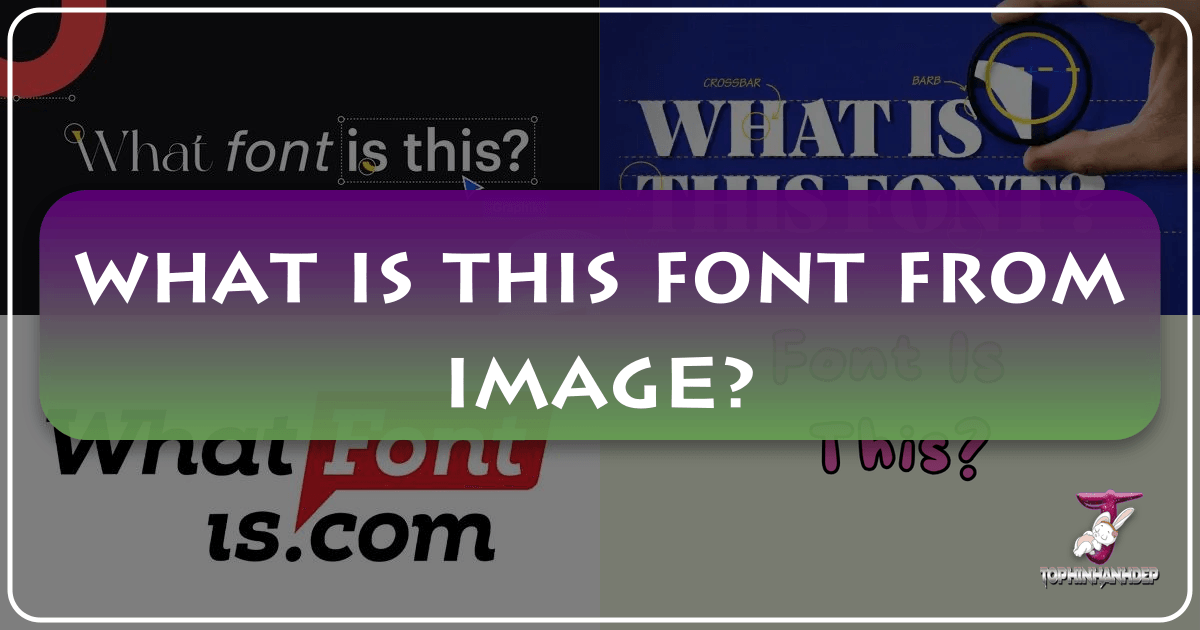
In the dynamic world of visual content, where every detail contributes to a compelling narrative, typography stands as an unsung hero. From the bold headlines on a stunning wallpaper to the subtle captions accompanying a breathtaking nature photograph, fonts dictate mood, convey messages, and establish aesthetic consistency. For designers, photographers, and anyone passionately engaged in digital art, the question “what is this font from image?” is not merely a fleeting curiosity but a critical challenge that can significantly impact a project’s success. At Tophinhanhdep.com, your premier resource for high-resolution images, creative inspiration, and essential image tools, we understand this challenge intimately. This comprehensive guide will delve into the art and science of font identification, exploring its significance, preparation techniques, and the cutting-edge tools that empower you to unlock the typographic secrets hidden within any image.
The frustration is universal: you encounter a captivating image, perhaps a striking abstract background or a beautifully designed aesthetic piece, and a particular typeface catches your eye. Its unique curves, the way its serifs subtly extend, or the sheer elegance of its sans-serif structure seems perfect for your next project – be it a new graphic design layout, a personalized wallpaper, or even a nuanced photo manipulation. Yet, without knowing its name, this perfect font remains just out of reach. This is where the power of font identification truly comes to light, transforming a moment of visual appreciation into a tangible creative opportunity. Tophinhanhdep.com champions this pursuit, equipping you with the knowledge and resources to seamlessly integrate exceptional typography into your visual endeavors, enhancing everything from trending styles to personal photo ideas.
The Indispensable Role of Fonts in Visual Communication
Typography is far more than just choosing letters; it’s a sophisticated art form that profoundly influences how visual information is perceived and interpreted. In the realm of images and visual design, a font acts as a silent storyteller, capable of evoking strong emotions and setting the tone for an entire piece.
Beyond Aesthetics: Fonts as a Design Foundation
Imagine a dramatic sad/emotional image paired with a playful, bubbly font, or a serene nature background marred by an aggressive, sharp typeface. The dissonance is palpable. Conversely, a well-chosen font can elevate an image, making it more impactful, legible, and aesthetically pleasing. For anyone curating wallpapers, crafting backgrounds, or producing digital art on Tophinhanhdep.com, understanding typography is paramount. It forms the very foundation of visual design, influencing factors like readability, brand identity, and emotional resonance. A font can communicate trustworthiness, innovation, tradition, or whimsy, even before a single word is read. This intrinsic link makes font identification an essential skill for elevating the quality of high-resolution photography, enhancing the appeal of abstract compositions, and ensuring that every pixel, including the textual ones, aligns with your creative vision. Whether you’re designing a vibrant, aesthetic graphic or a subtle, beautiful photography piece, the right font ensures your message is not just seen, but felt.
The Designer’s Dilemma: Why Font Identification is Crucial
For professional graphic designers, digital artists, and photographers who frequently engage in photo manipulation or develop creative ideas, identifying a specific font is often a non-negotiable requirement. Clients may provide an image of an existing brand logo or a marketing collateral and expect designers to match the font exactly to maintain brand consistency. This becomes particularly vital when working on a series of images, perhaps for a thematic collection or a mood board, where visual cohesion is key.
Beyond client demands, designers themselves are constantly seeking inspiration. Spotting a unique font in a trending style or an innovative digital art piece can spark new creative ideas. The ability to quickly identify and source such a font empowers designers to expand their toolkit, experiment with new typographic combinations, and continuously evolve their visual language. Without effective font identification tools, this process would be cumbersome, time-consuming, and often reliant on guesswork, hindering efficiency and potentially compromising the final visual design. For Tophinhanhdep.com users focused on editing styles and digital photography, this capability translates directly into higher quality output and more refined visual experiences.
Preparing Your Image for Optimal Font Detection: Tips from Tophinhanhdep.com
Just as a master chef prepares their ingredients, a savvy designer prepares their images for font identification. The accuracy and speed of any font detection tool, particularly those powered by AI, depend heavily on the quality and clarity of the input image. Tophinhanhdep.com emphasizes that a little pre-processing can go a long way in yielding flawless results.
Image Optimization for Flawless Results
Before uploading an image to any font identifier, consider these crucial optimization steps to enhance the tool’s performance:
- High Contrast is Key: Ensure the text in your image has a stark contrast against its background. Black text on a white background or vice versa provides the cleanest distinction for AI algorithms. If your image has low contrast (e.g., grey text on a light grey background), use image editing software—many of which are explored in Tophinhanhdep.com’s Image Tools section, including optimizers—to adjust brightness and contrast.
- Sharpness and Clarity: Blurry, pixelated, or low-resolution images will yield poor results. Strive for high-resolution images where the text is crisp and clear. Tophinhanhdep.com’s guides on High Resolution photography and AI Upscalers can assist in improving image quality before font identification.
- Isolate the Text: Crop the image tightly around the specific text you wish to identify. Avoid including extraneous elements, complex backgrounds, or multiple lines of text with different fonts. The cleaner the crop, the better.
- Horizontal Alignment: Most font identification tools perform best when the text is perfectly horizontal. If the text is skewed or angled, rotate the image (even by small increments like 15 or 90 degrees) until it’s level.
- Separate Connected Characters: For script or highly decorative fonts where letters touch or overlap (ligatures), use an image editor to carefully separate them. AI struggles with joined characters, as it needs to analyze individual glyph shapes.
In conclusion, the quest to identify “what is this font from image” is a fundamental aspect of modern visual creation. It’s a journey that combines keen observation, strategic preparation, and the intelligent application of cutting-edge technology. Tophinhanhdep.com stands as your trusted partner in this endeavor, providing not only an expansive library of images for inspiration but also the knowledge and recommendations for the image tools necessary to achieve typographic precision. Whether you’re a seasoned graphic designer, an aspiring digital artist, a passionate photographer, or simply someone who appreciates beautiful aesthetics, mastering font identification will unlock new dimensions of creativity, allowing you to craft visual content that truly resonates and leaves a lasting impression. Explore the tools, refine your eye, and let Tophinhanhdep.com be your guide to a world where every image, every design, and every piece of text speaks volumes.